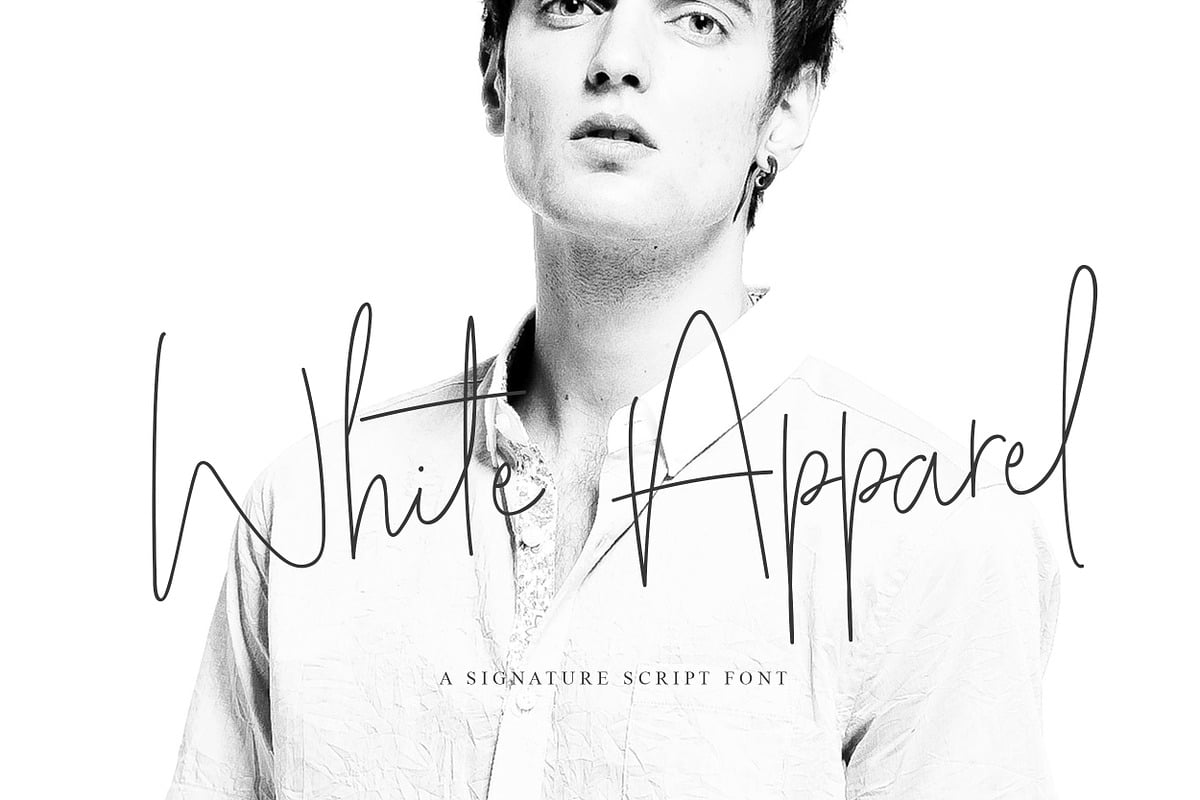
White Apparel | Script Font
A sleek, signature-style script font built for bold branding, editorial design, and everything in between.
White Apparel is a handwritten script typeface with unique character and effortless elegance. Its flowing, italic style makes it a natural fit for logos, name cards, magazine layouts, invitations, headers, and large-scale artwork.
- White Apparel – A clean italic script font featuring upper and lowercase characters, numerals, and a full set of symbols.
- White Apparel Alt – A second version with a completely new set of upper and lowercase characters, including an italic version for added versatility.
- International Language Support – Designed to work across a wide range of languages.